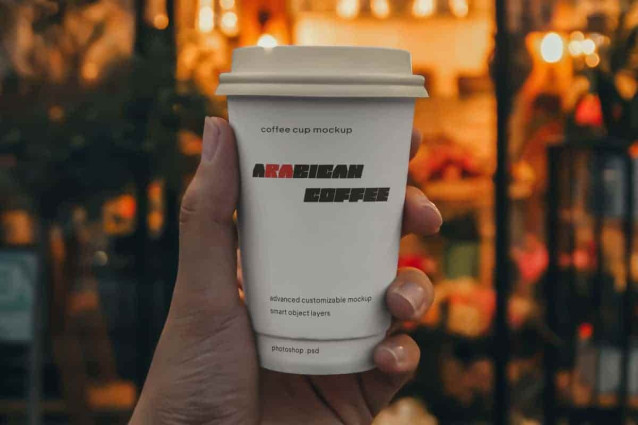
Racer Strike Font
Racer Strike Font is a fat cool bold and edgy racing sporty display font with a fast effect in racing font, well made by RaisProject. This font display has a bold sporty shape so it can add coolness to every design you make. It will be good for label, poster, invitation, signage, cover, menu, custom design, brand image, web, and more!
Racer Strike Font includes a full set of Uppercase and Lowercase Letters, Numerals, Punctuation and Symbol. This cool font also contain Ligature character that will be suitable for various industries, such as automotive, sports, game, fashion, accessories, advertisement, event or festival, printing, publishing, etc.